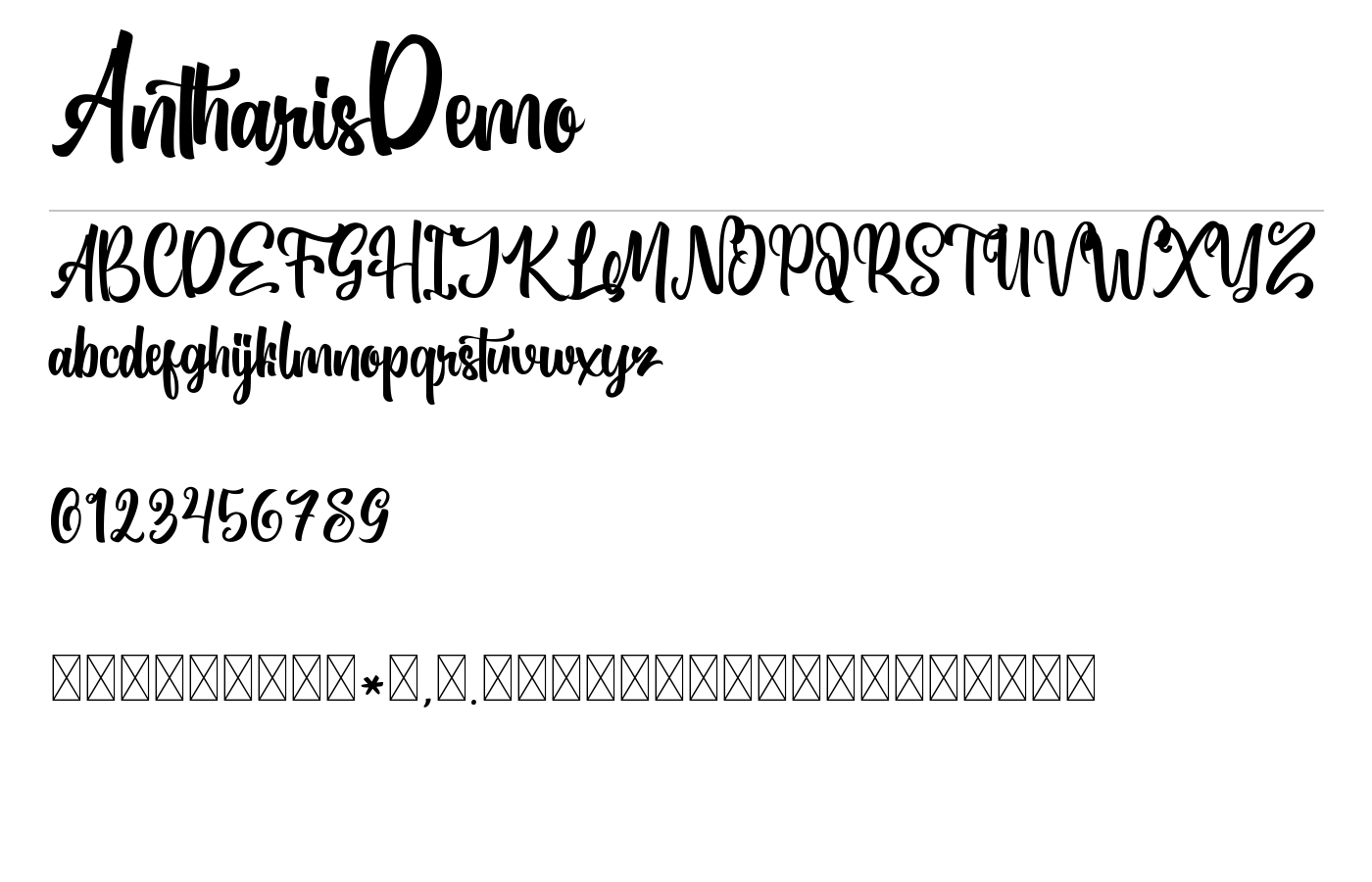
AntharisDemo is a lively and expressive script font with a hand-lettered feel, showcasing fluid, connected strokes and playful loops. Its bold, slightly condensed style and high contrast give it an energetic yet elegant personality, making it perfect for creative branding, invitations, and eye-catching headlines that want to convey warmth and individuality.
AntharisDemo Font
About AntharisDemo Font
| Font family | AntharisDemo Font |
| Designer | Aditya Rezki |